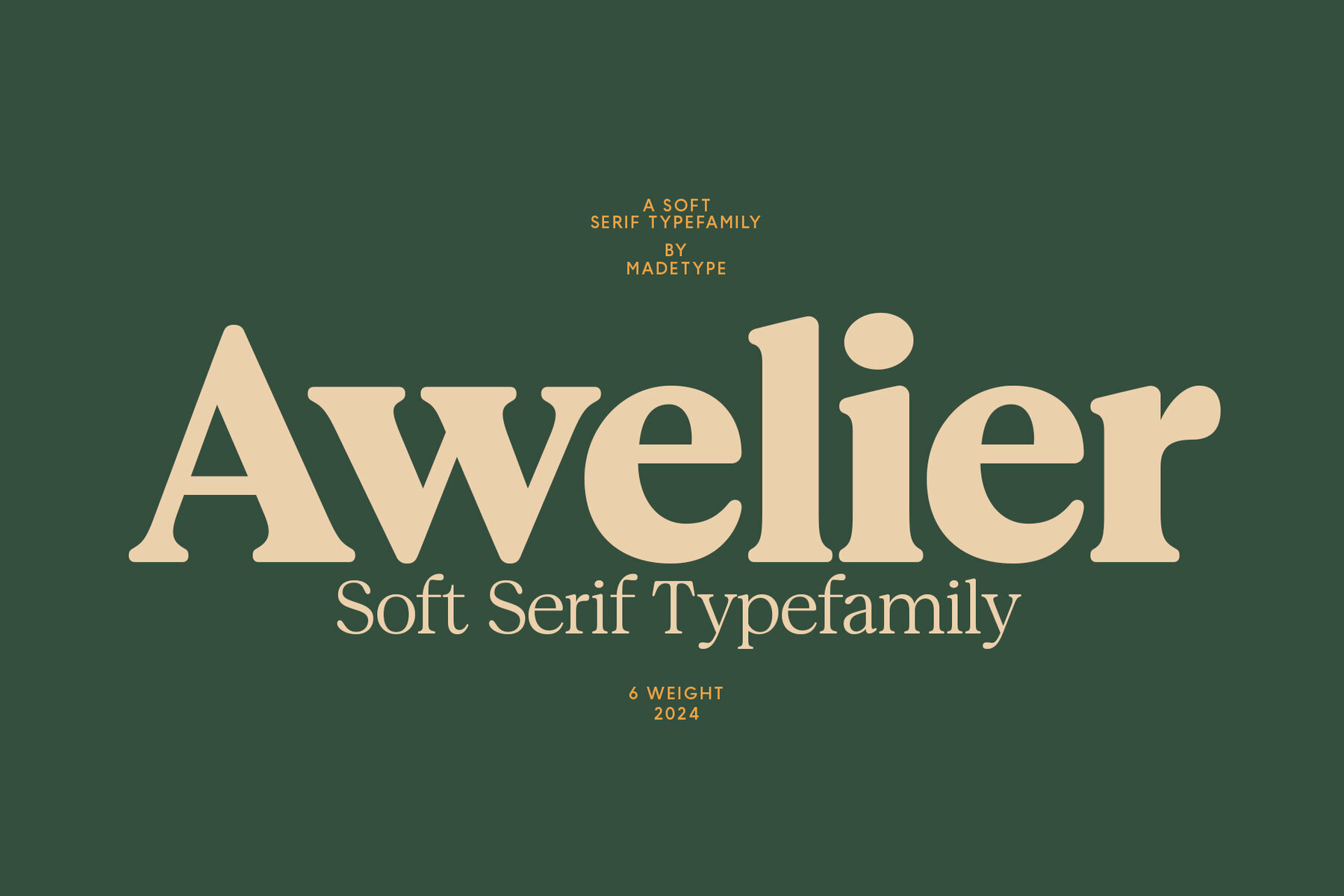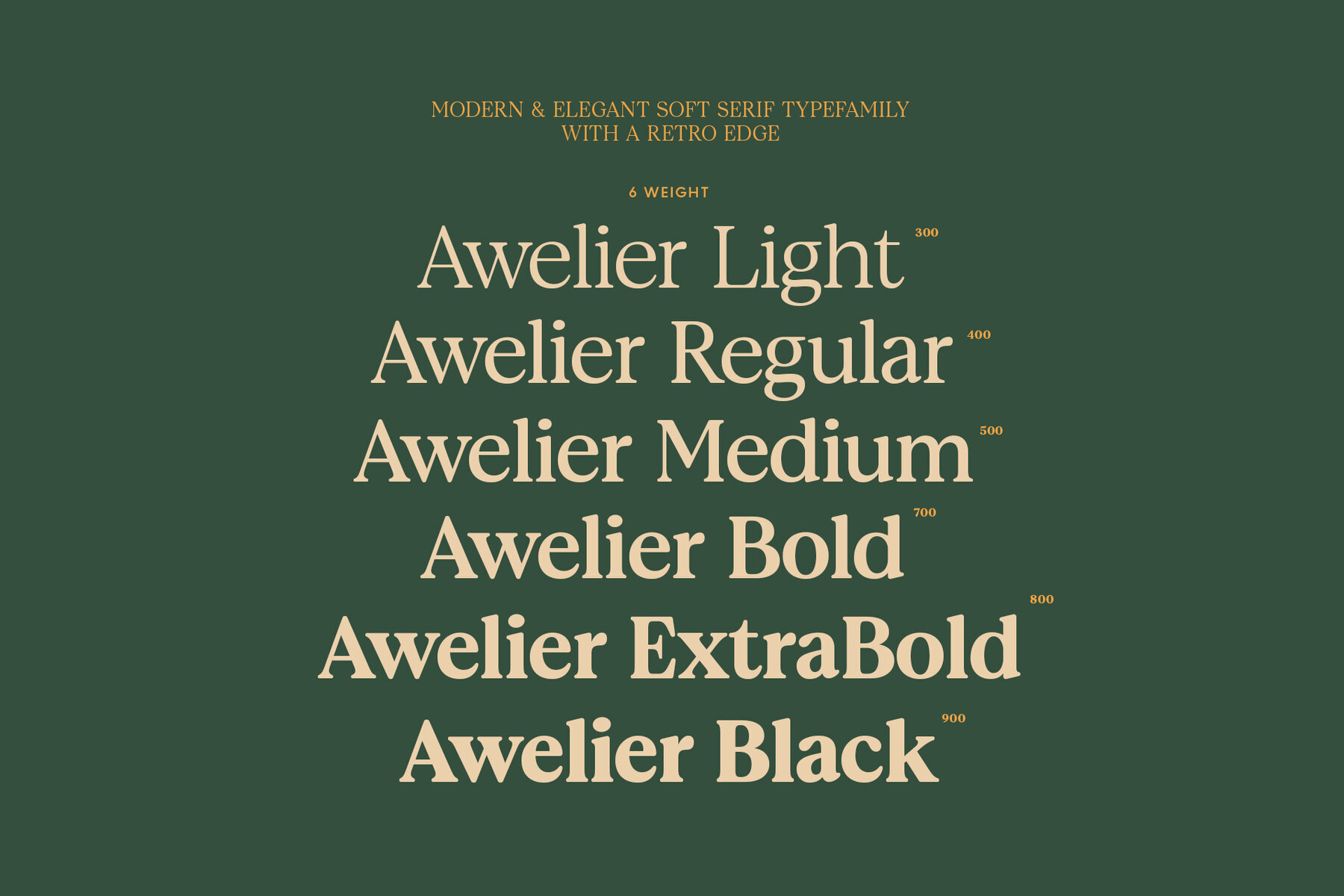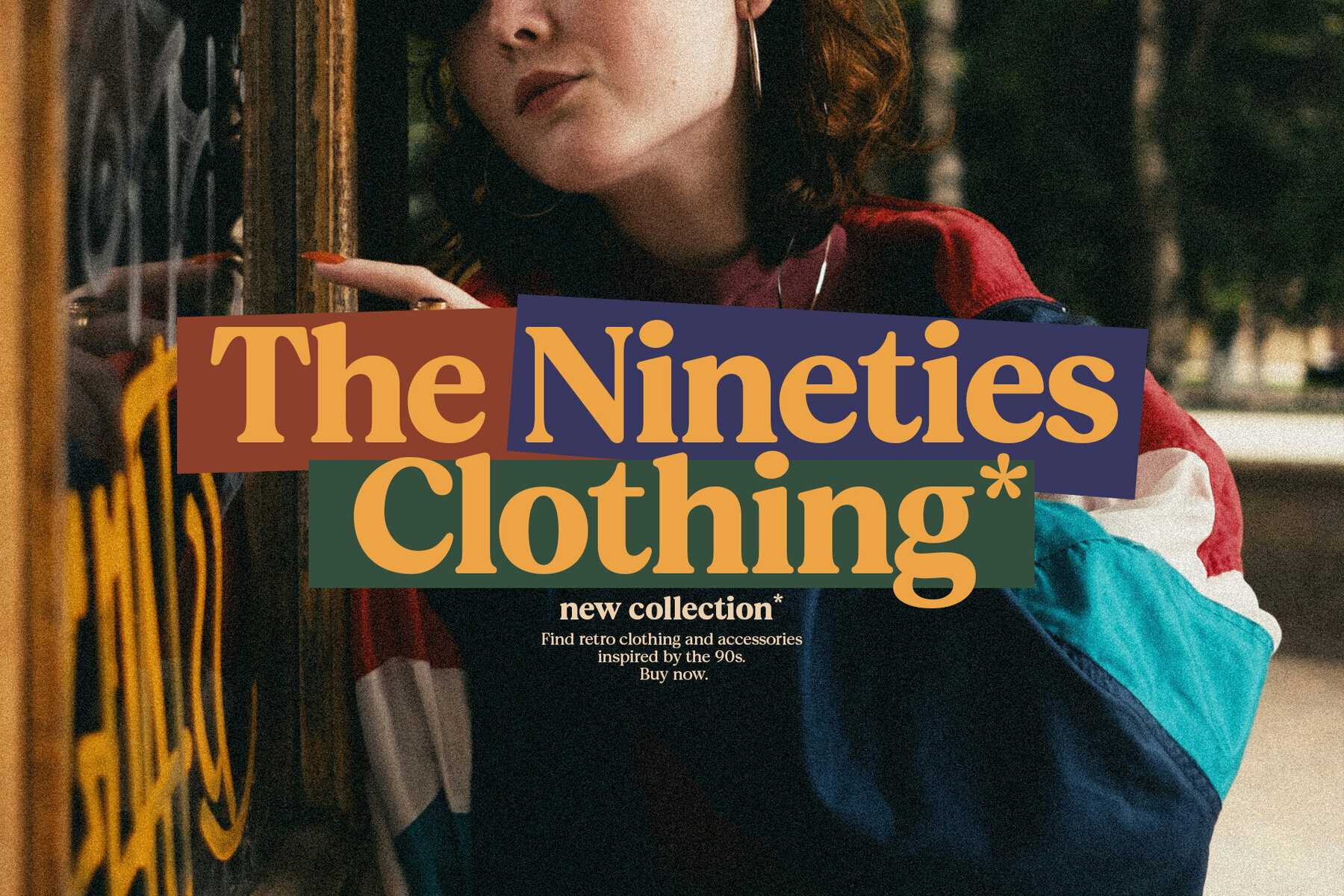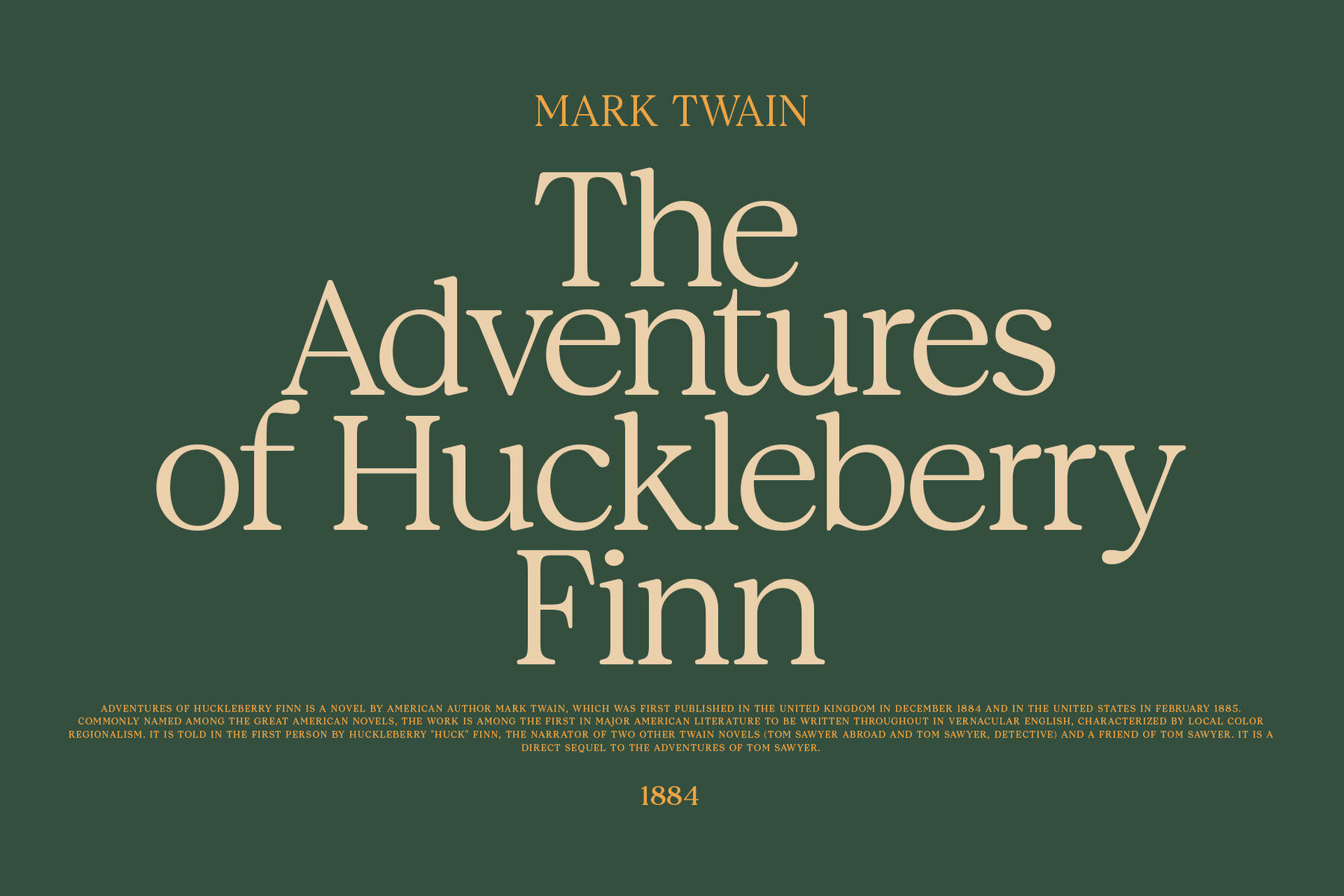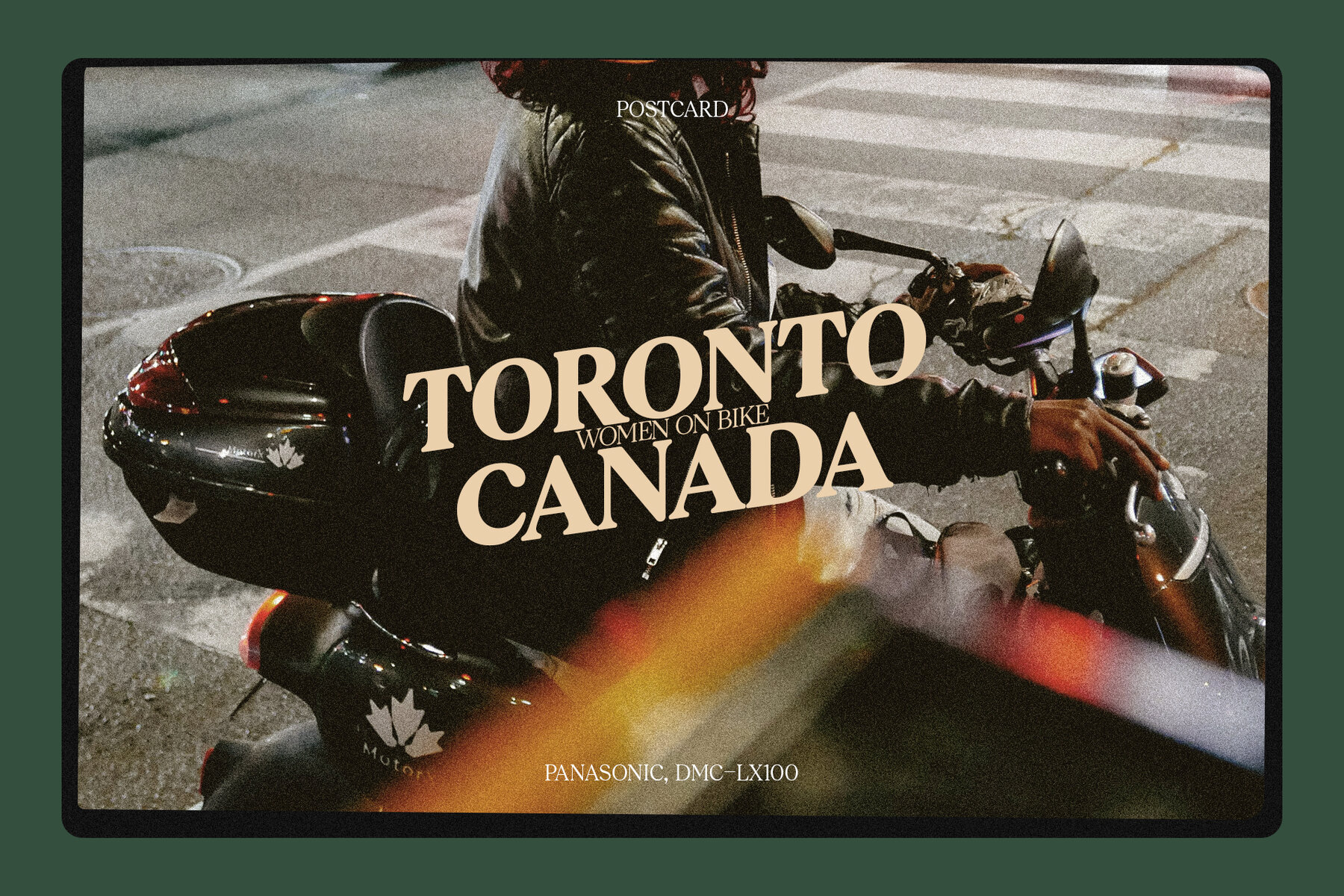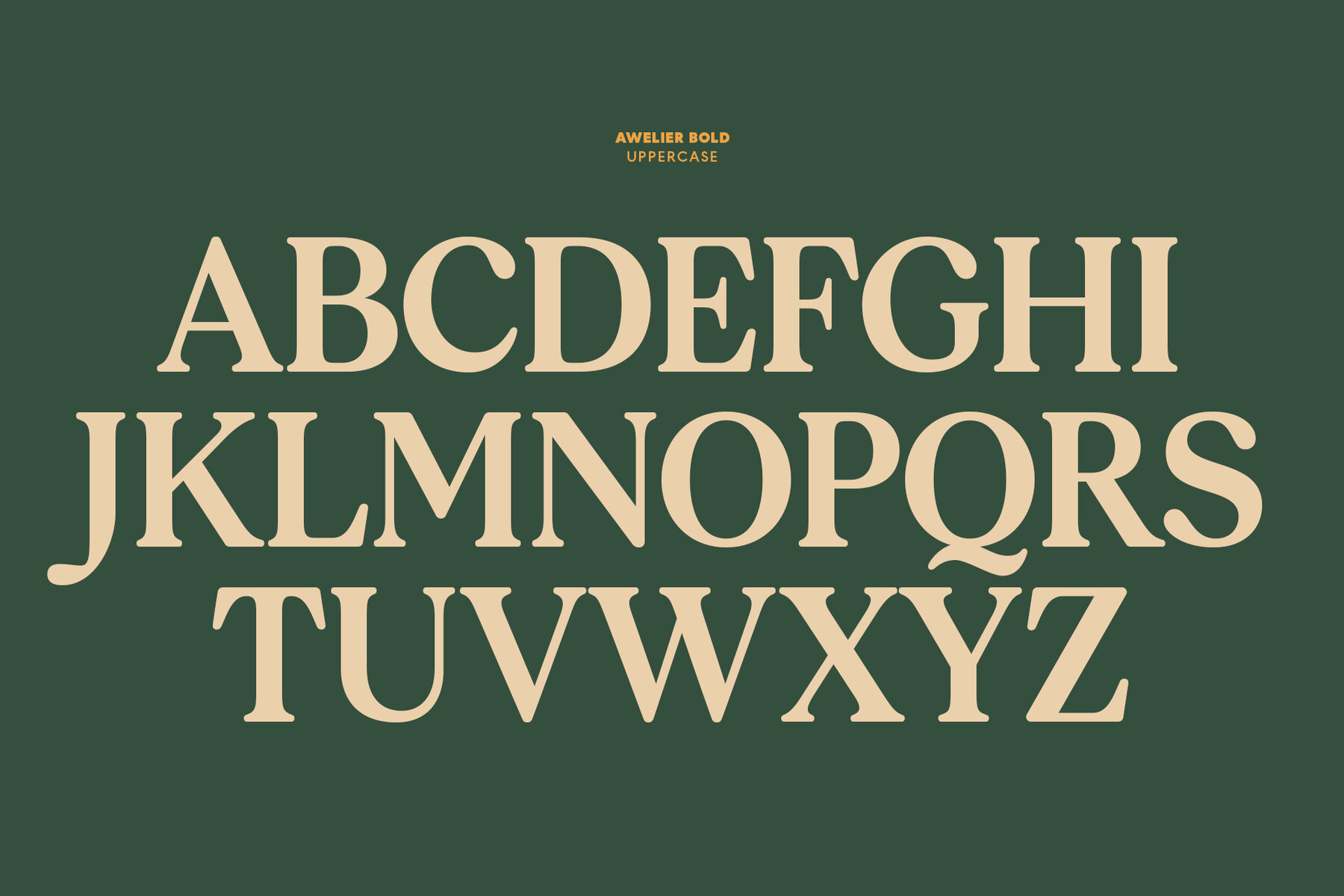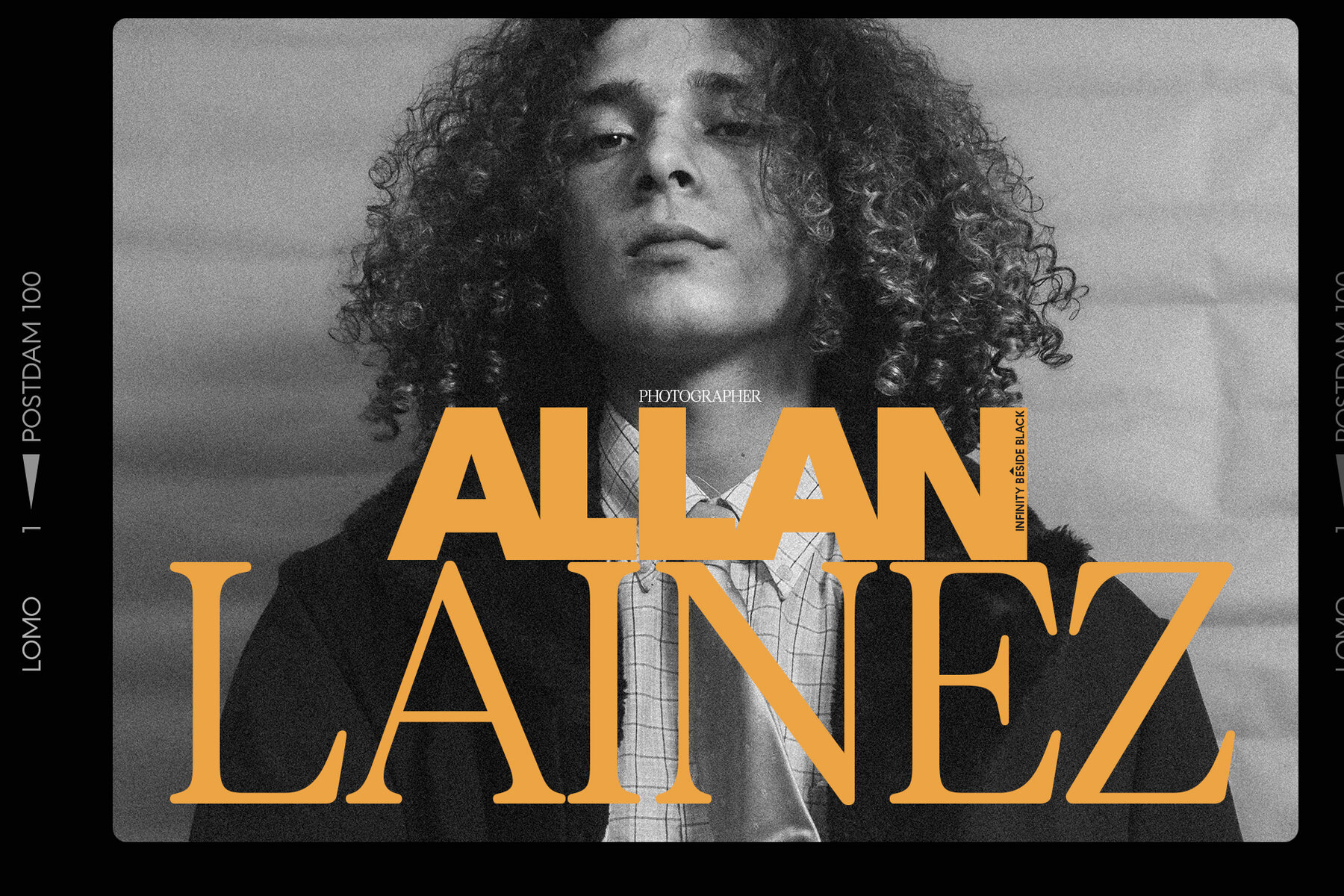
MADE Awelier Font
This typeface is a modern interpretation of a transitional serif, with an elegant and refined appearance. It combines the traditional serifs and clean lines with a contemporary touch, providing a high-contrast and versatile display that works well for both text and headlines. Its combination of boldness and readability makes it suitable for a wide range of designs, from editorial to branding.